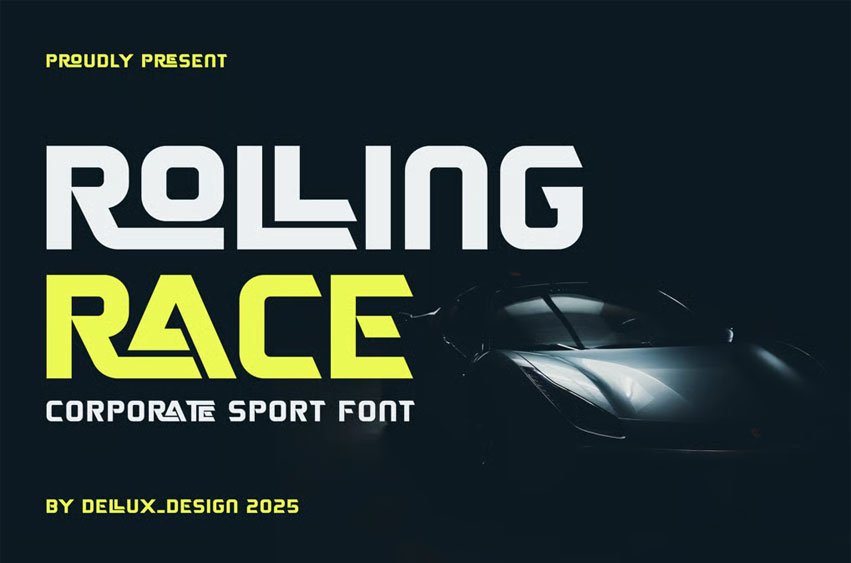
Rolling Race Font is a unique font. It can make it easier to convey the message in your design. Use for awesome display, labeling, movie scenes, posters, movie titles, gigs, album covers, logos, and much more.